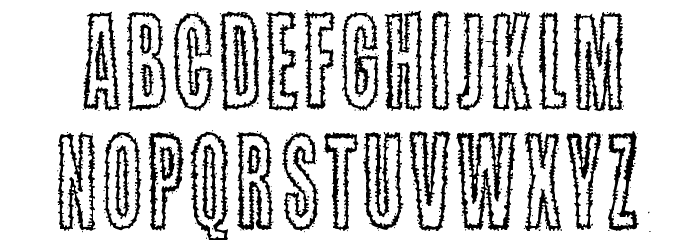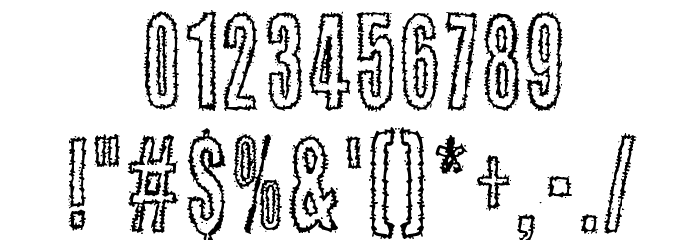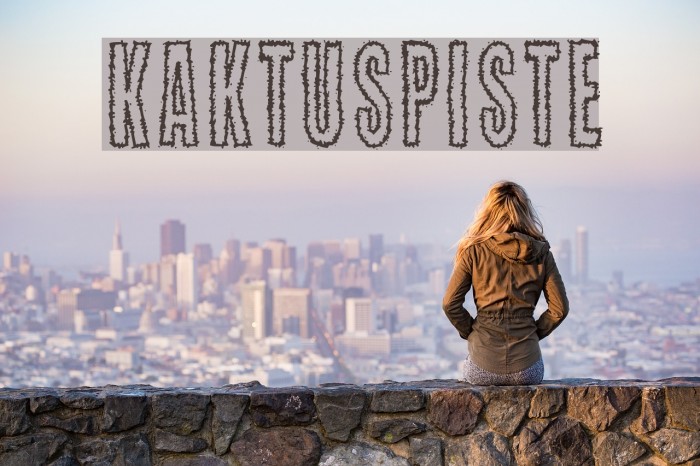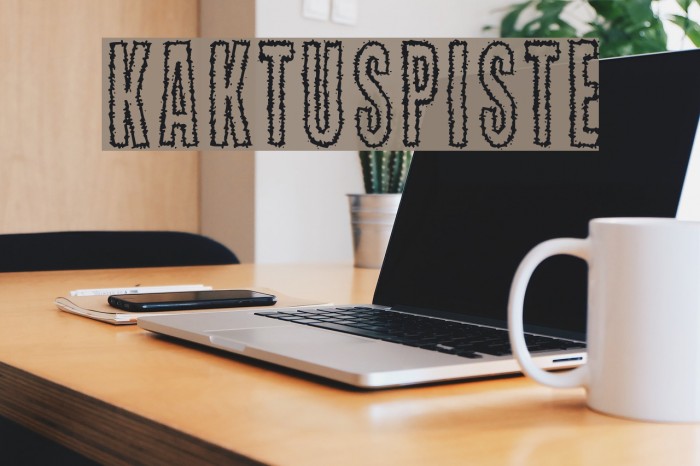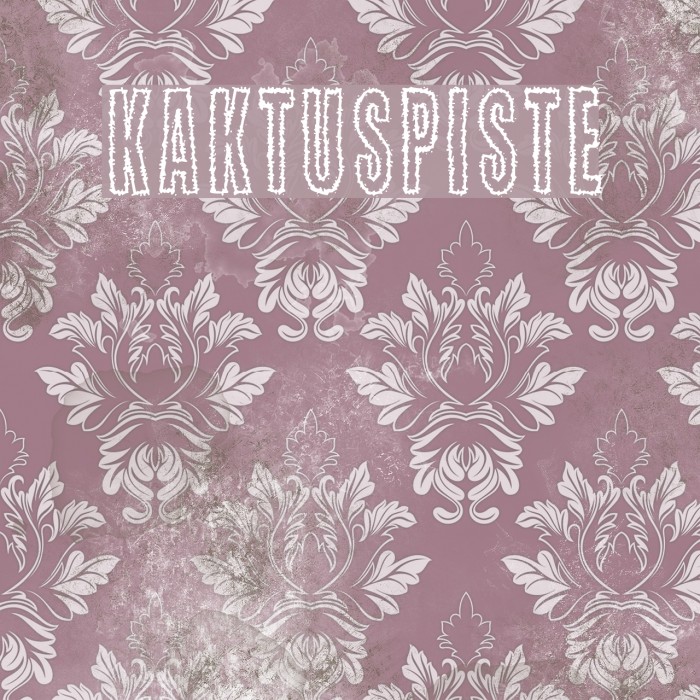
Kaktuspiste Font
This font features a bold and textured design, reminiscent of a vintage or distressed style. The characters are outlined with a rough, stippled effect that gives them a unique, hand-crafted appearance. The uppercase letters are tall and narrow, with consistent stroke widths that contribute to a uniform look. The numbers and special characters maintain this style, ensuring a cohesive appearance across all glyphs. This font's distinctive texture makes it stand out, adding a layer of visual interest to any design.
A bold, textured font with a vintage, distressed style.
- Proposed Projects: Ideal for posters, branding, and any design requiring a vintage or handcrafted look.
- Overall Style: Vintage